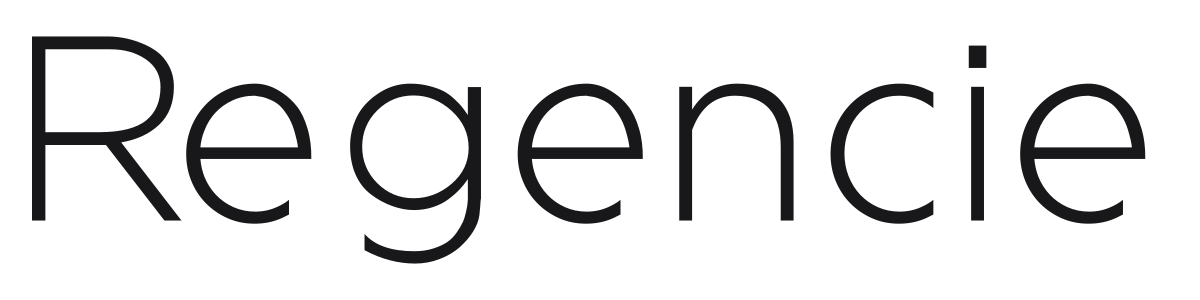
Regencie
Regencie is a light, geometric sans-serif from Álvaro Thomáz with thin strokes and an elegant, pared-back structure. The letterforms feel airy and deliberate, balancing minimal detailing with enough character to avoid looking sterile. Best at headline sizes where its delicate weight can read clearly, fitting naturally into fashion editorials, luxury branding, and contemporary layout work.